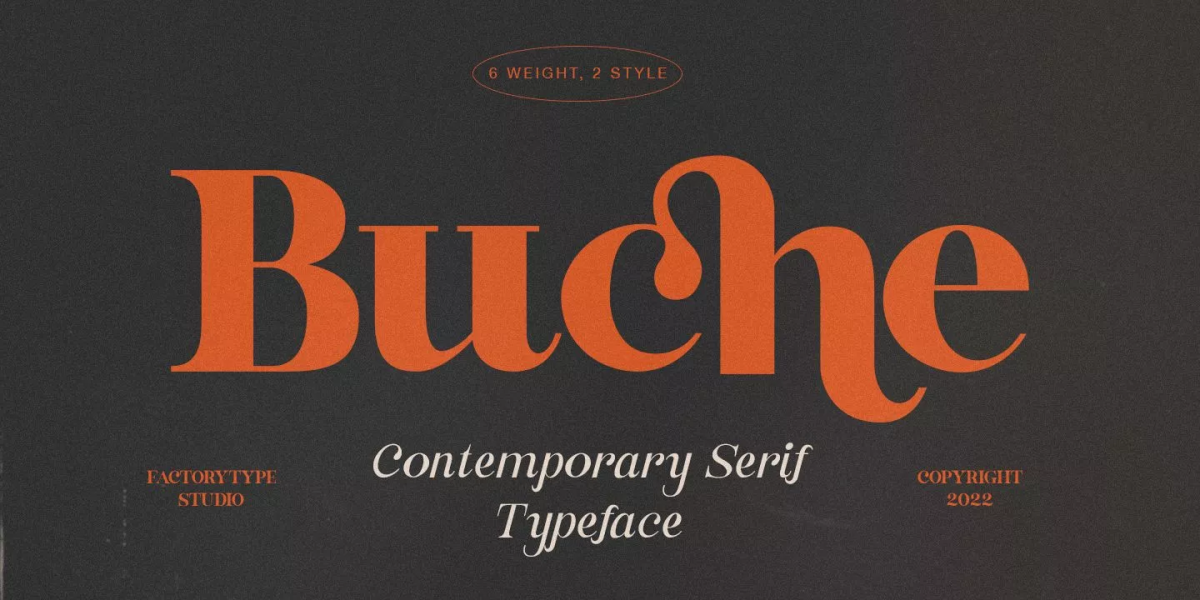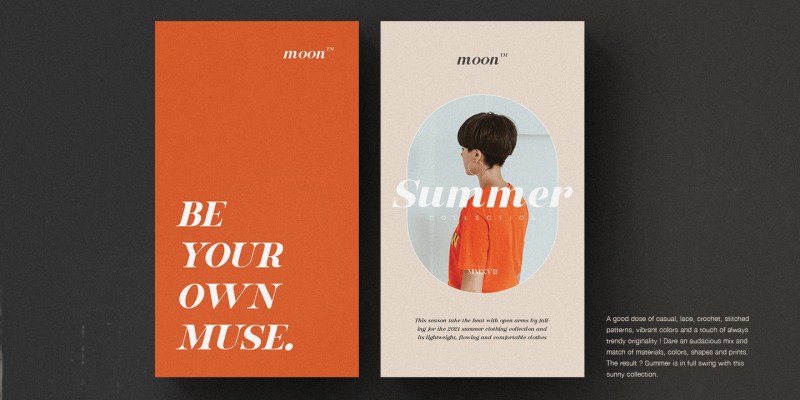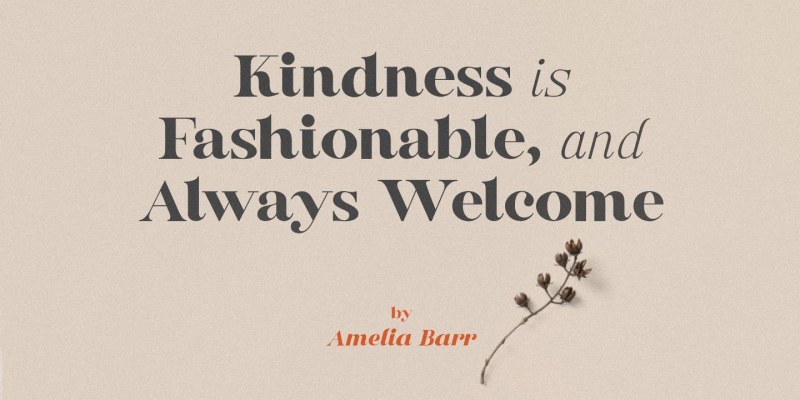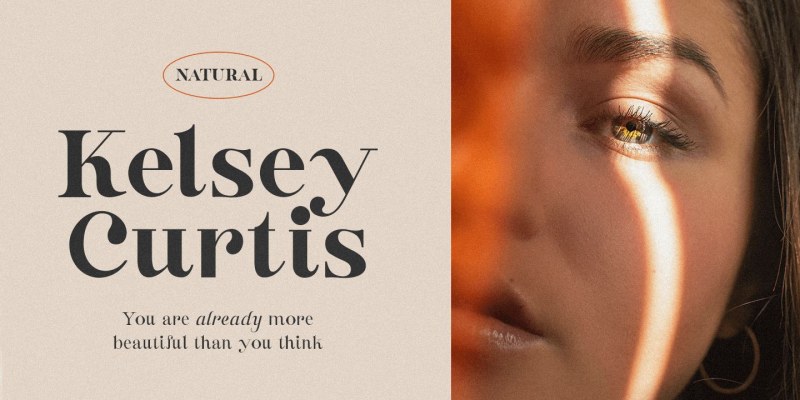
Buche Font Family
Buche – a brief introduction Buche is a contemporary serif font designed for logo and brand design. It exudes an air of affluence and sophistication, despite its curvy appearance. The ligature fonts will come in handy for whatever your imagination can think up!
Buche Font Family is a Serif Fonts font that brings a professional and versatile look to your projects. Buche – a brief introduction Buche is a contemporary serif font designed for logo and brand design.